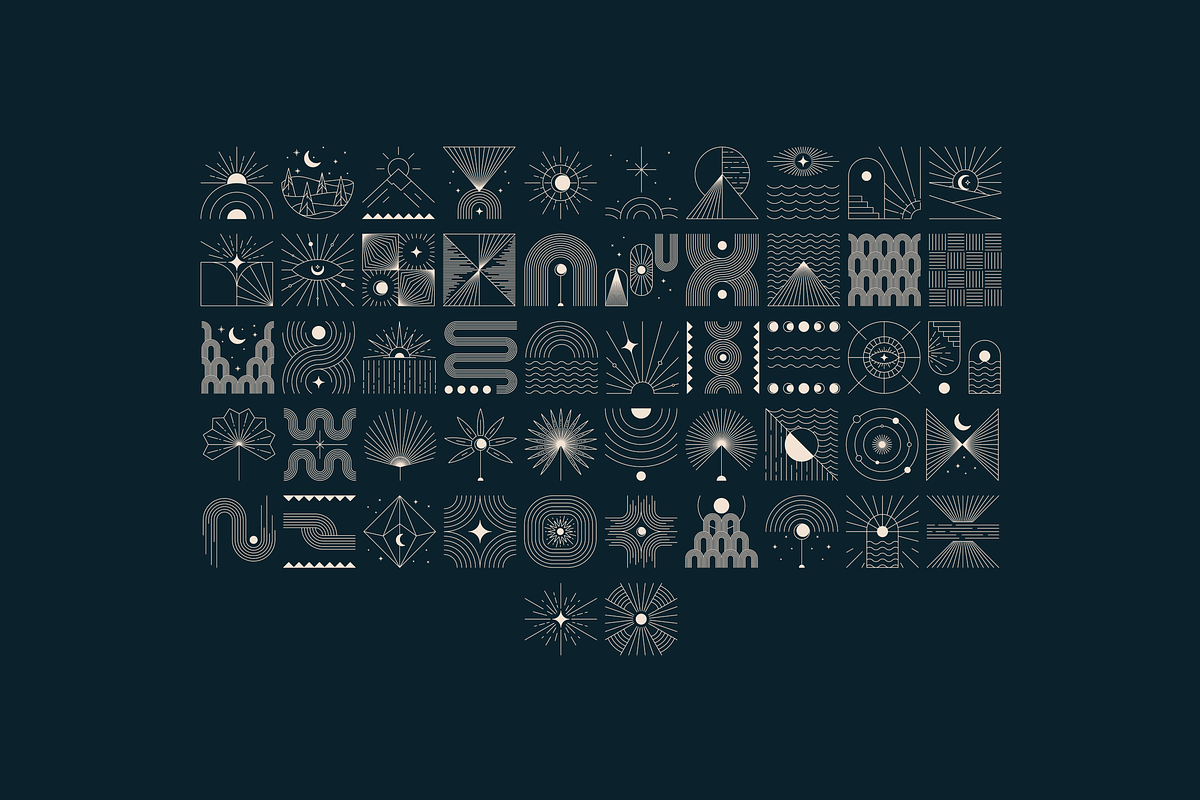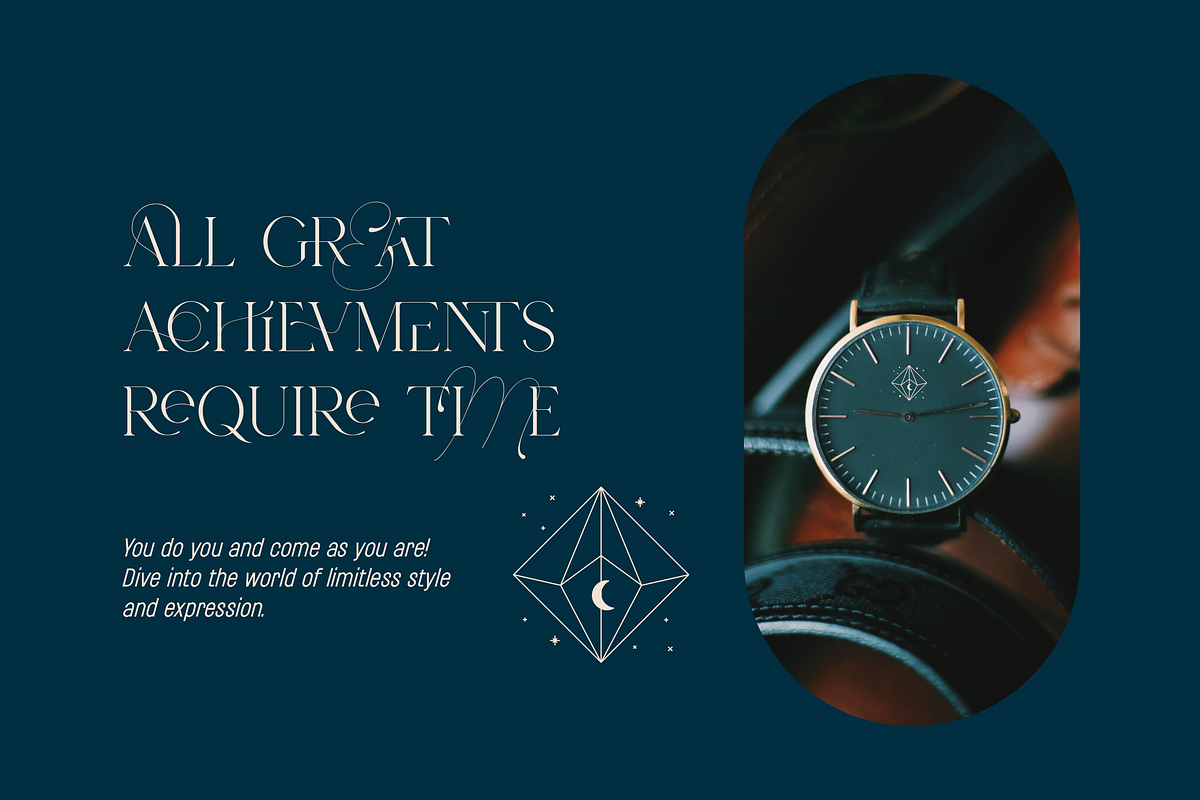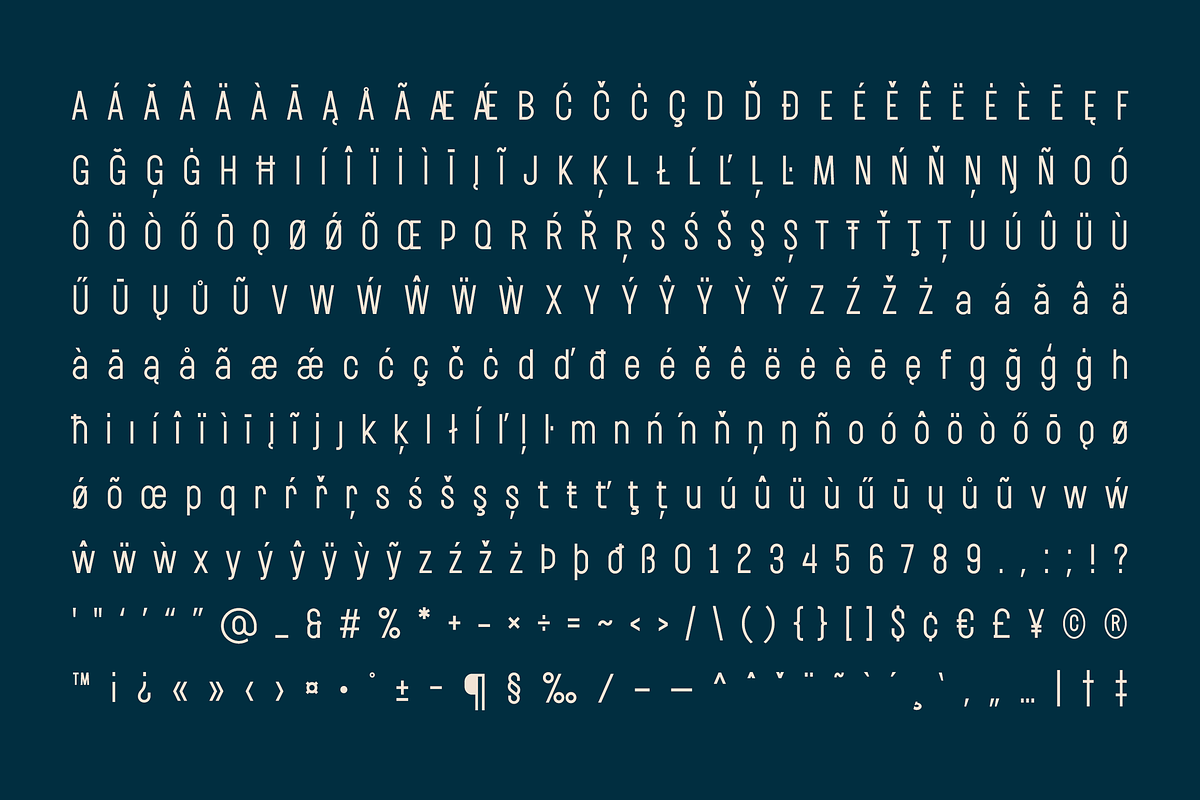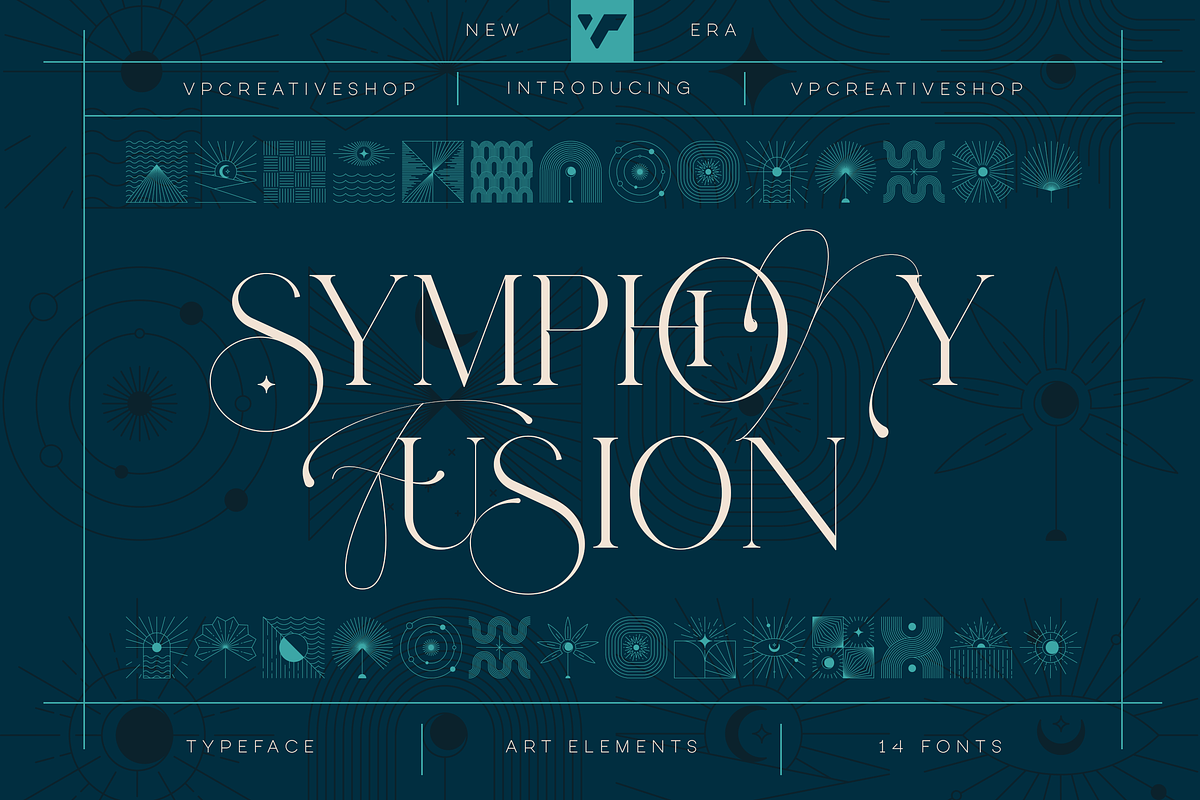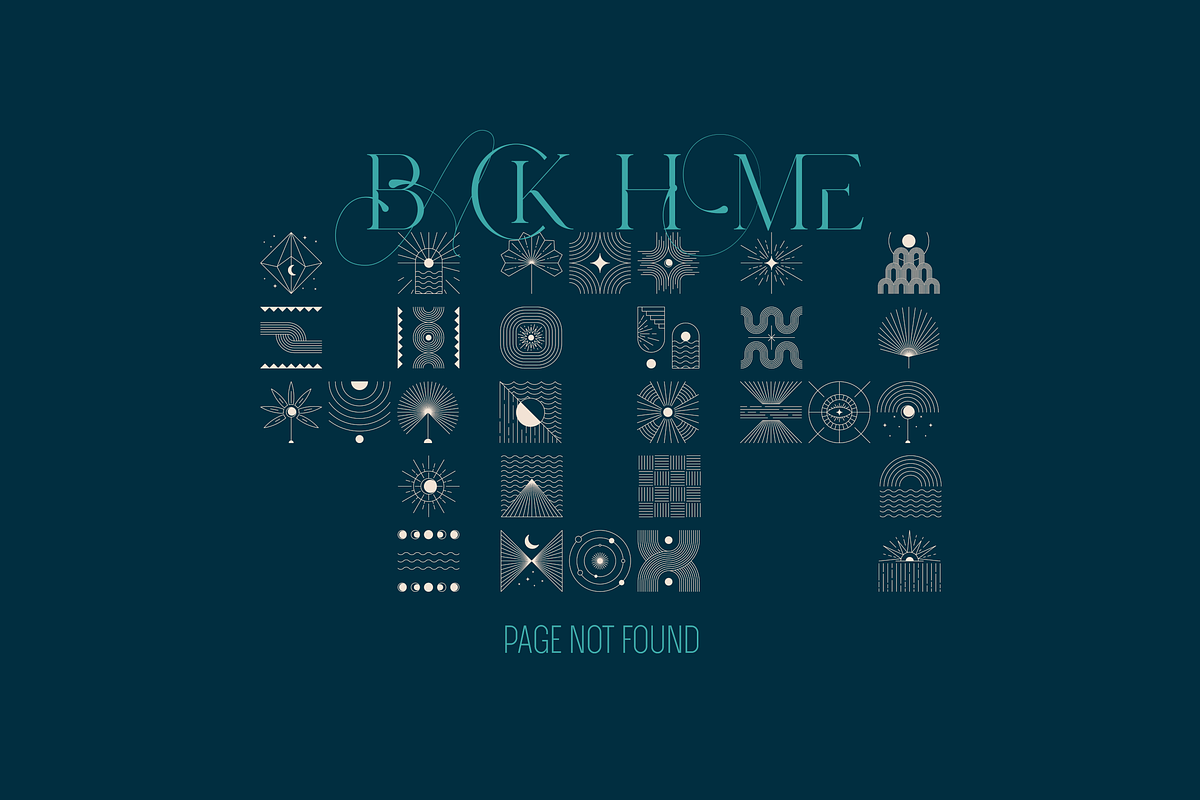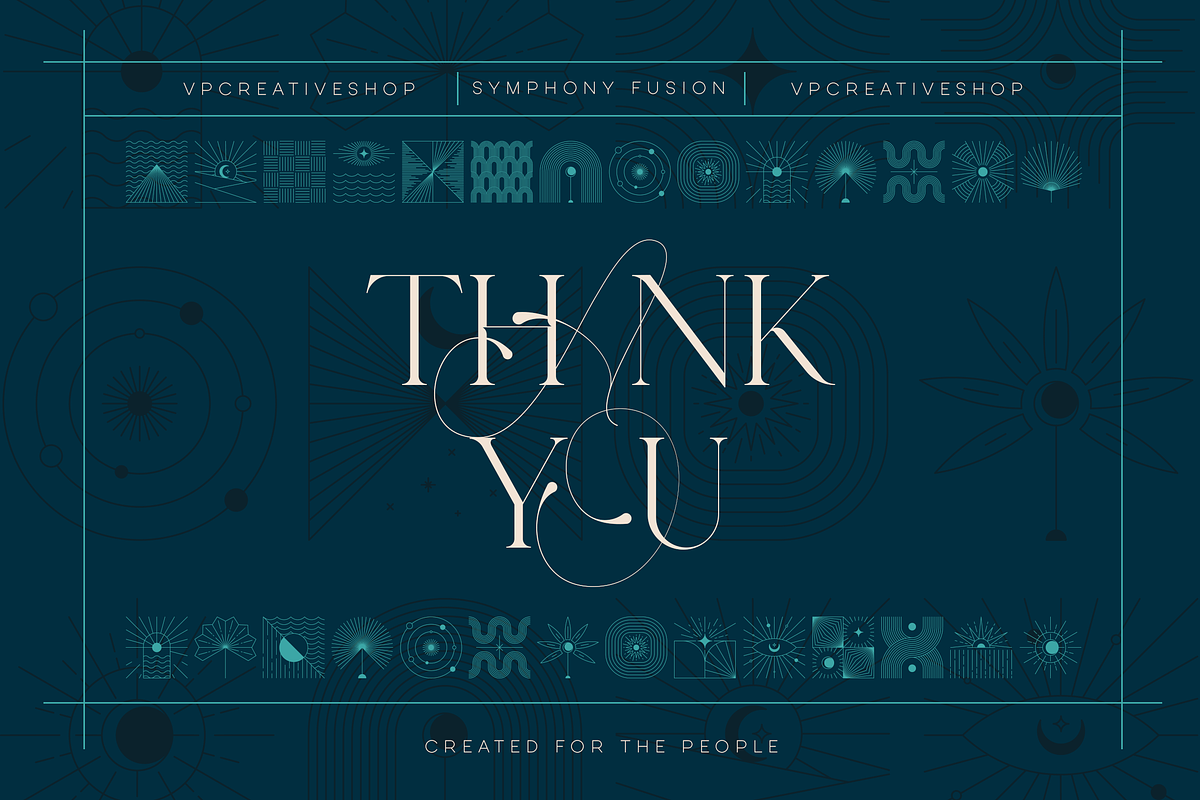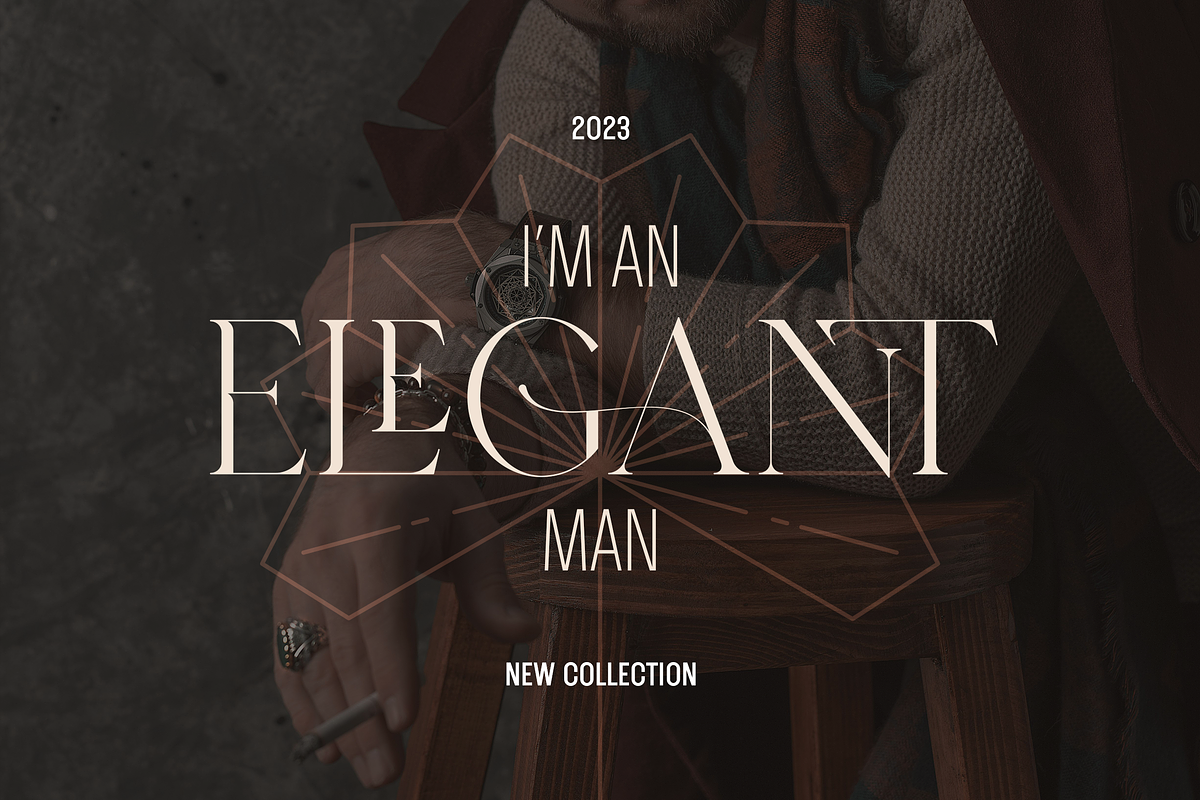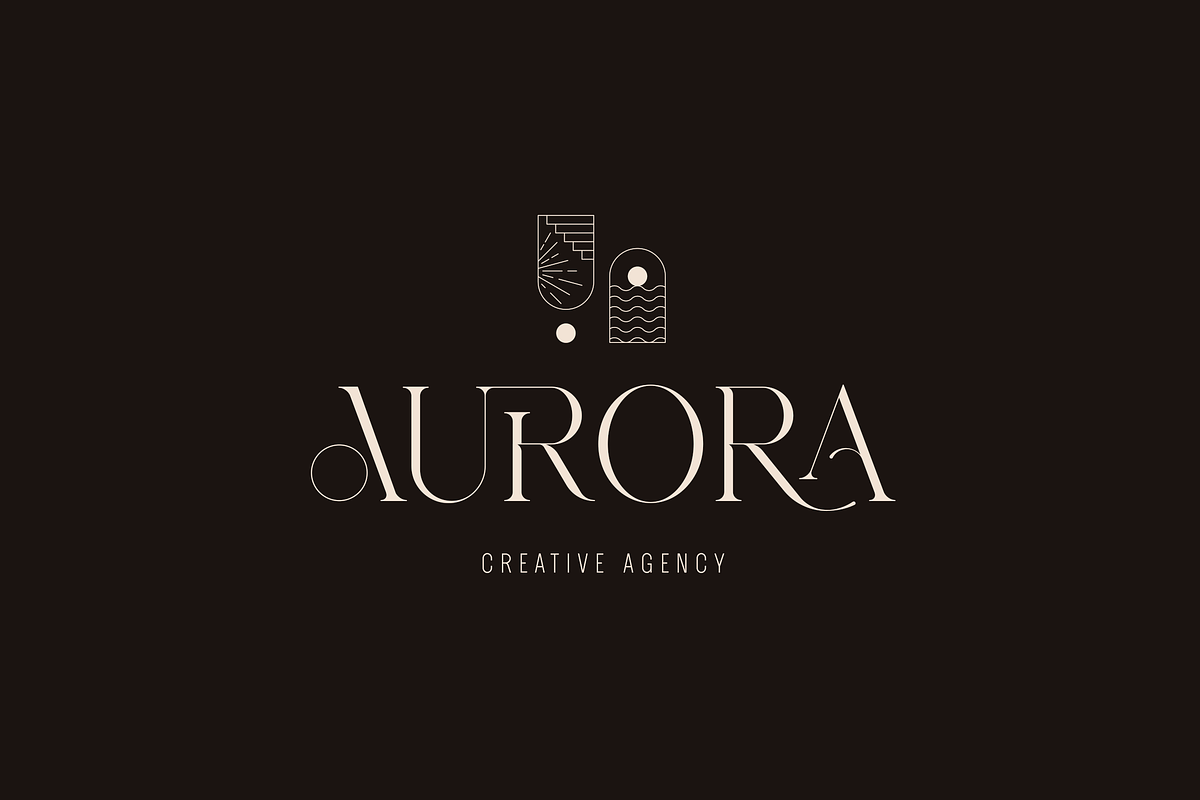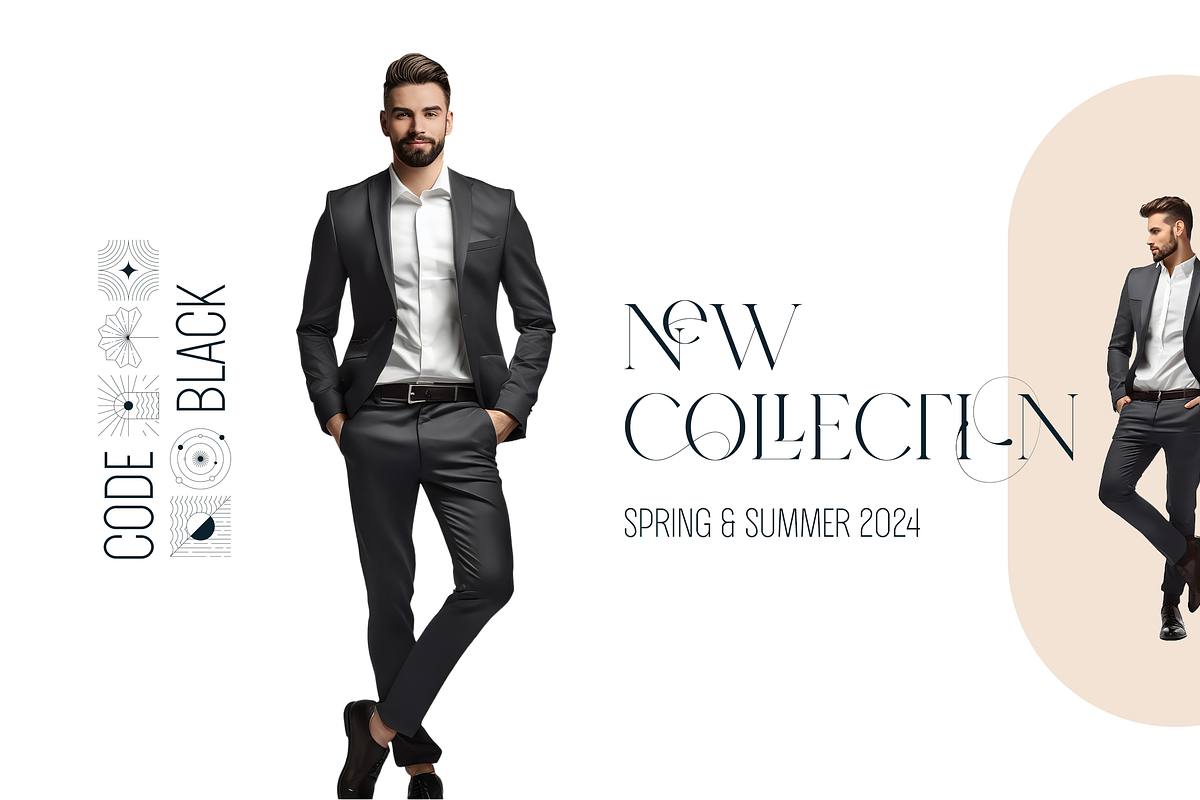
Symphony Fusion Creative Typeface
Symphony Fusion is a delightful and versatile typeface that seamlessly blends classic elegance with modern flair. This serif font boasts a rich collection of ligature glyphs, adding a touch of sophistication to your text. What sets it apart is its unique approach to uppercase letters, where a graceful script design takes center stage, creating a harmonious balance between tradition and contemporary style.
Adding to its versatility, Symphony Fusion doesn't stop at just serifs. It extends its range with complementary sans serif fonts, offering various weights and italic versions. This diversity allows for creative freedom, enabling you to express your message with both poise and a touch of boldness.
One of Symphony Fusion's notable features is its extensive language support, accommodating a total of 87 languages. This makes it a globally inclusive choice for communication, ensuring that your words can be elegantly expressed in a multitude of linguistic contexts.
To elevate your design even further, Symphony Fusion doesn't just limit itself to alphabets and characters. With 52 additional art elements, this typeface provides a treasure trove of creative possibilities. These elements can be used independently or combined in patterns, allowing you to add a unique and personalized touch to your projects.
In essence, Symphony Fusion is more than just a typeface; it's a symphony of design elements that harmonize tradition and modernity, offering a friendly and versatile tool for creative expression across a diverse range of languages and visual styles.
Language Support : Afrikaans, Albanian, Asu, Basque, Bemba, Bena, Breton, Chiga, Colognian, Cornish, Czech, Danish, Dutch, Embu, English, Estonian, Faroese, Filipino, Finnish, French, Friulian, Galician, Ganda, German, Gusi,i Hungarian, Indonesian, Irish, Italian, Jola-Fonyi, Kabuverdianu, Kalenjin, Kamba, Kikuyu, Kinyarwanda, Latvian, Lithuanian, Lower Sorbian, Luo, Luxembourgish, Luyia, Machame, Makhuwa-Meetto, Makonde, Malagasy, Maltese, Manx, Meru, Morisyen, North Ndebele, Norwegian, Bokmål, Norwegian, Nynorsk, Nyankole, Oromo, Polish, Portuguese, Quechua, Romanian, Romansh, Rombo, Rundi, Rwa, Samburu, Sango, Sangu, Scottish, Gaelic, Sena, Shambala, Shona, Slovak, Soga, Somali, Spanish, Swahili, Swedish, Swiss, German, Taita, Teso, Turkish, Upper, Sorbian, Uzbek (Latin), Volapük, Vunjo, Walser, Welsh, Western Frisian, Zulu